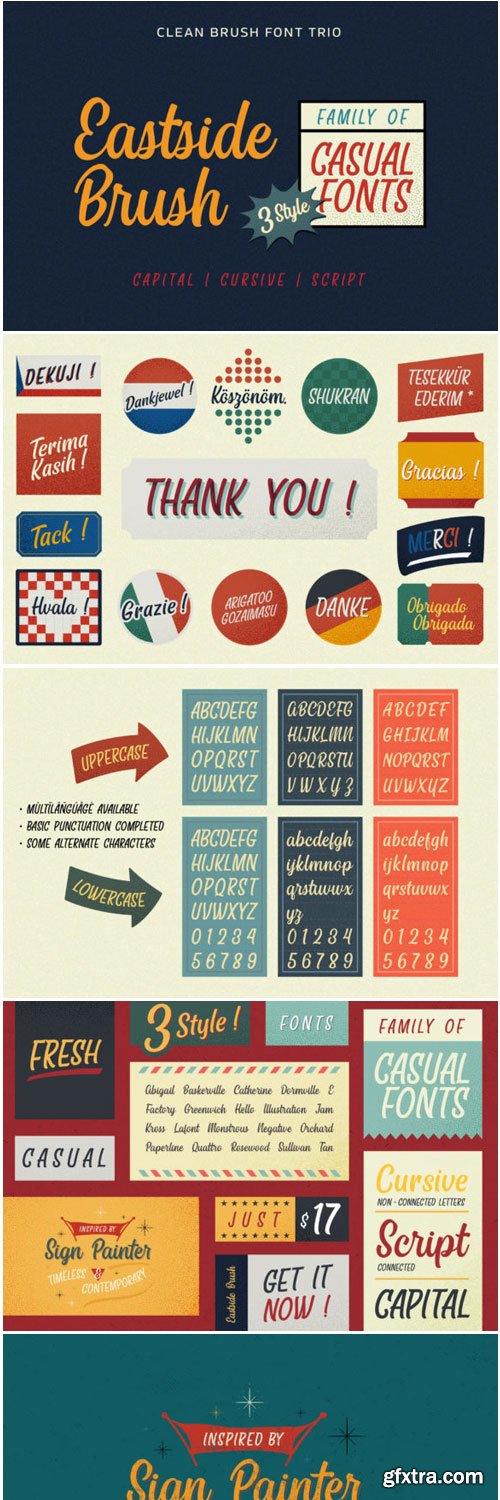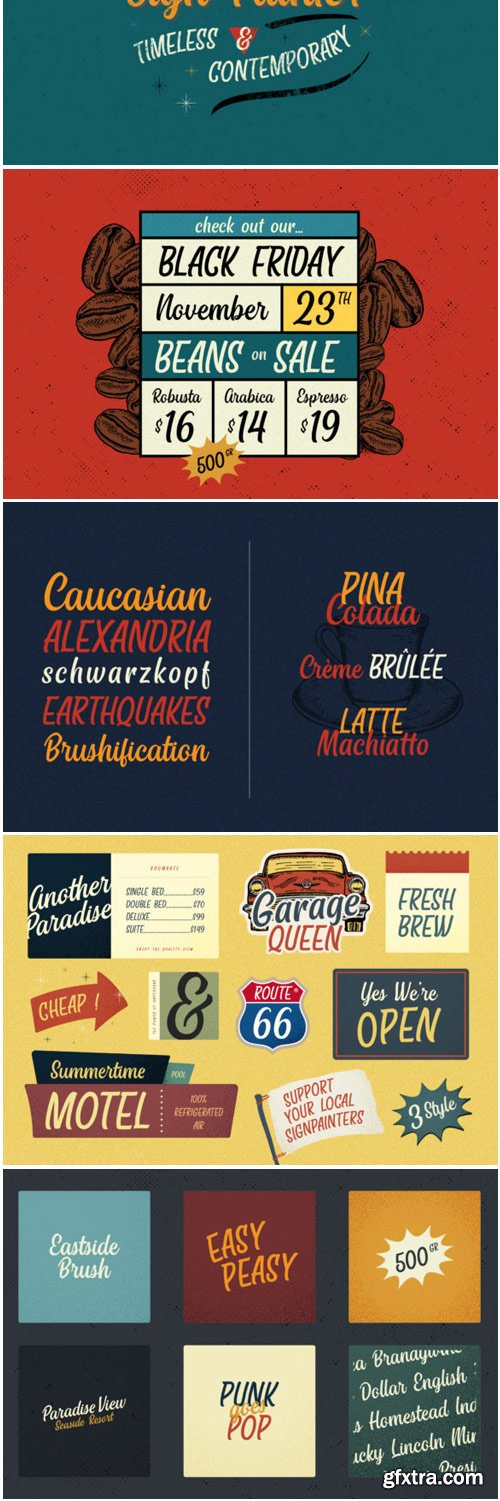
East Side Brush Font
Inspired by the casual style of a sign painter, East Side Brush smoothly blends classic lettering with a classical, timeless, and contemporary feel.